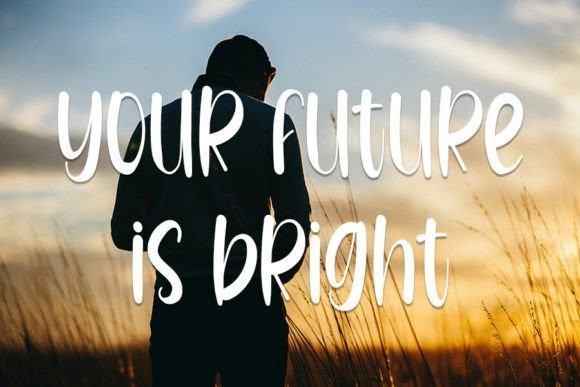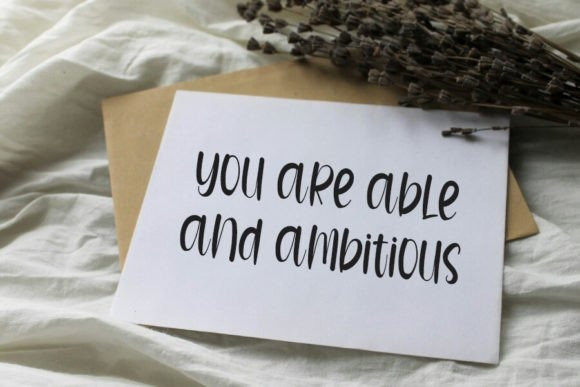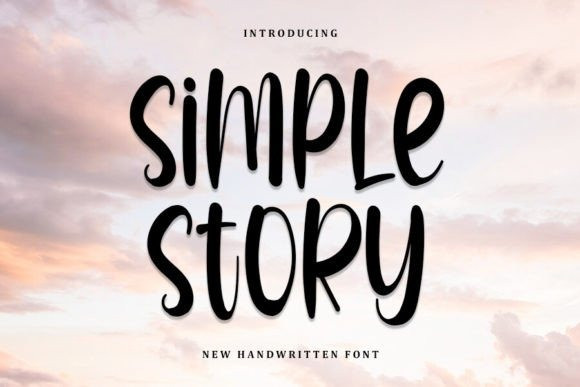
Simple Story Typeface
Simple Story Font is a neat and beautiful font described by an elegant touch, perfect for your favorite projects. Fall in love with its incredibly distinct and timeless style, and use it to create spectacular designs!